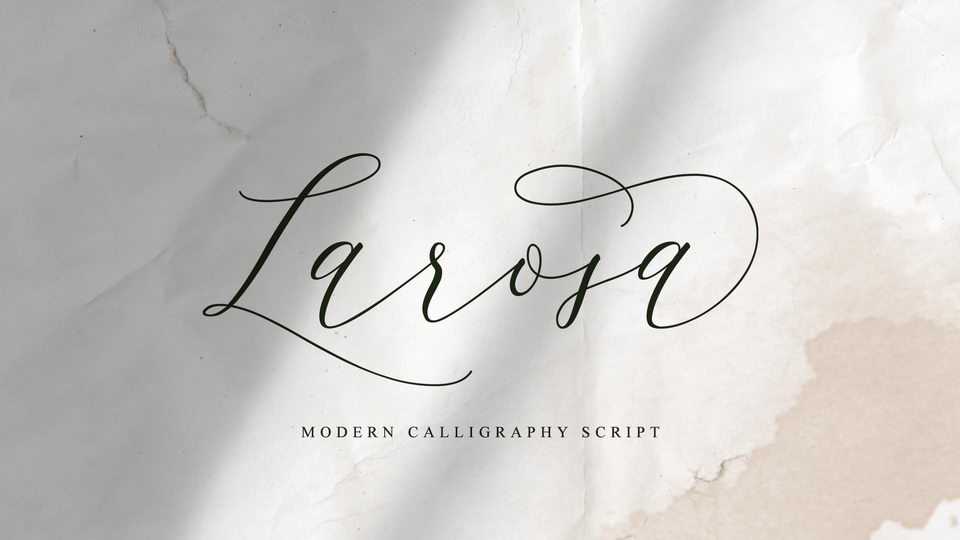
Download Larosa font, an elegant and luxurious modern script, made especially for those of you who are making logo designs, wedding supplies, branding, beauty packaging, etc.
Designer: Letteratom